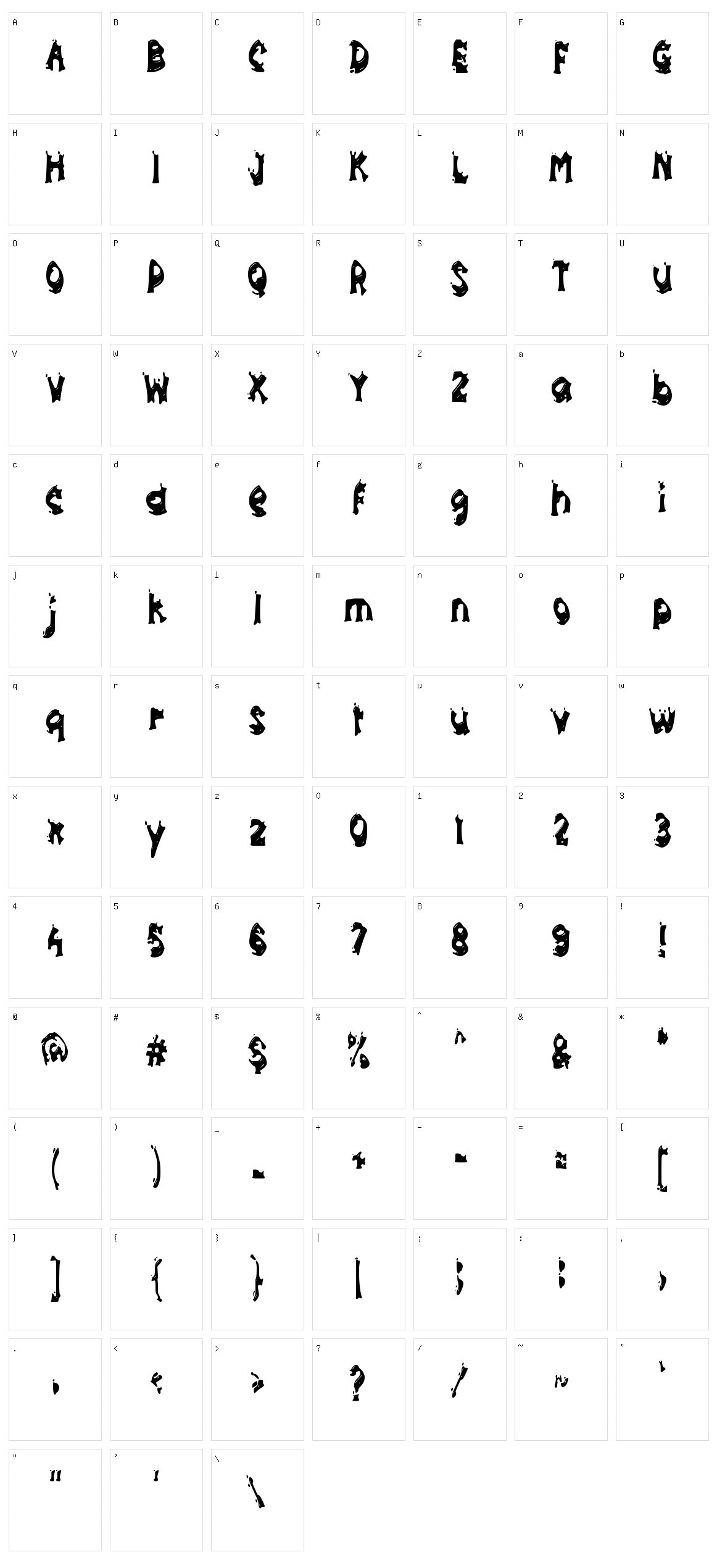
The free font c Cherry Tale is carefully designed by wep, showcasing a thoughtful balance of creativity and usability and falls under the Horror font style. When you download the ZIP file, it contains only 21.38 KB of font files, making it lightweight and quick to download. Please review the license details below to understand permitted usage and distribution rights. If license information is not available, we recommend using this font for personal projects only or contacting the author directly for commercial usage permissions.